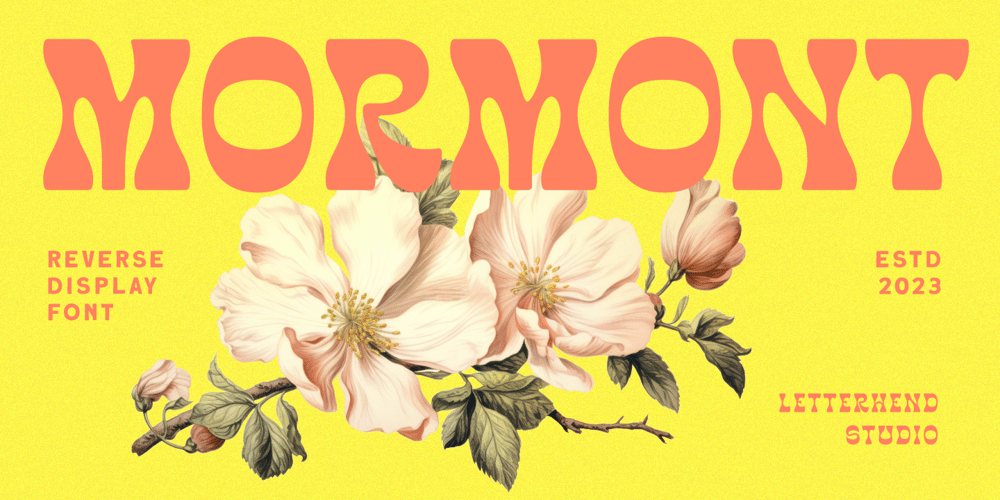
Mormont
Mormont font
Mormont Font Family was designed by Hendry Juanda and published by Letterhend. Mormont contains 1 styles and family package options. Mormont is a reverse display font with classic looks. This type of font perfectly made to be applied especially in storybook children or child theme which is need a standout font, and the other various formal forms such as invitations, labels, logos, magazines, books, greeting / wedding cards, packaging, fashion, make up, stationery, novels, labels or any type of advertising purpose.Features : Uppercase & lowercase Numbers and punctuation Alternates & Ligatures Multilingual PUA encoded